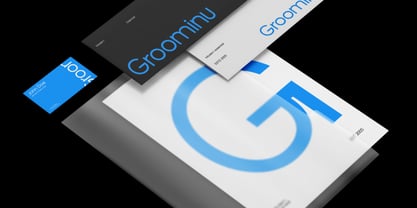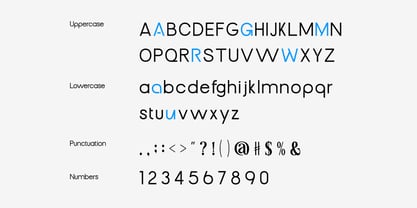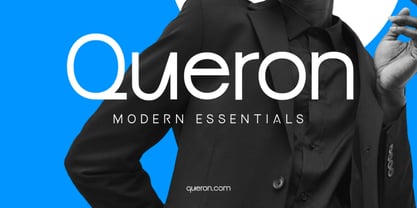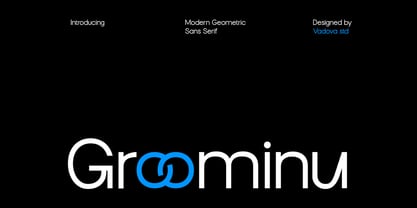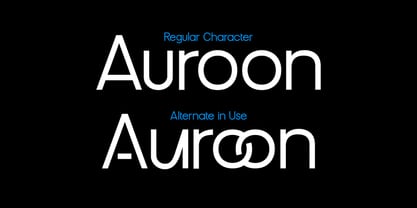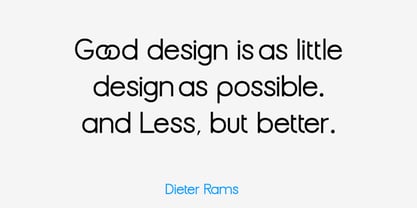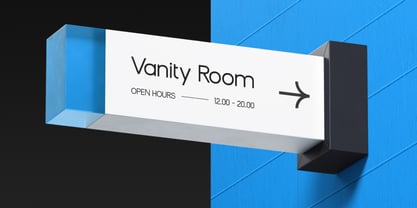
Groominu
Groominu is a clean, minimal geometric sans serif typeface designed with bold precision and subtle character play. Featuring unique custom ligatures and rounded balance, Groominu brings a sleek and modern aesthetic that’s perfect for branding, digital design, fashion, and tech-forward identities. The font includes uppercase and lowercase characters, numbers, punctuation, and multilingual support. Groominu is an excellent choice for forward-thinking branding and design. It’s ideal for tech companies, fashion startups, creative agencies, app UI/UX design, and modern editorial layouts. The font’s clean geometry ensures clarity.